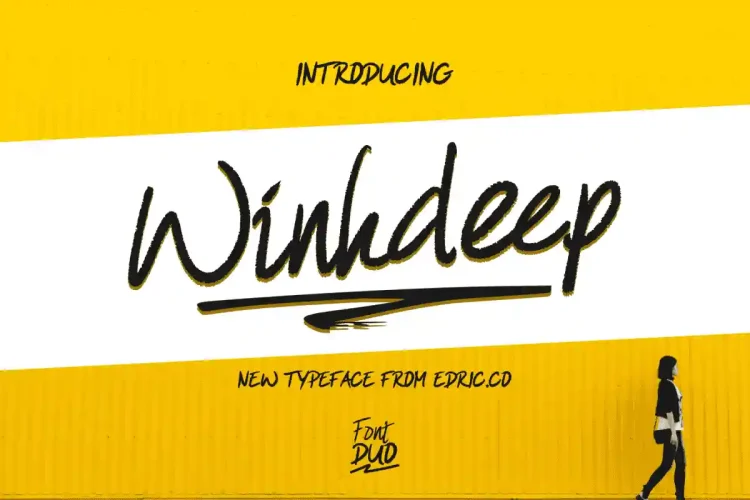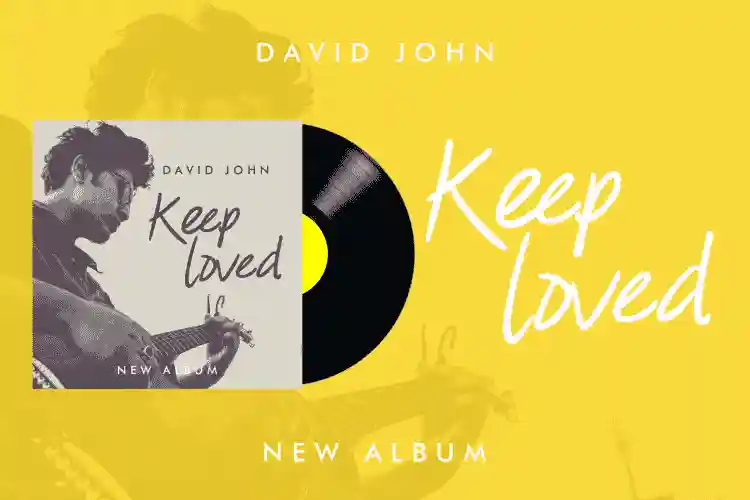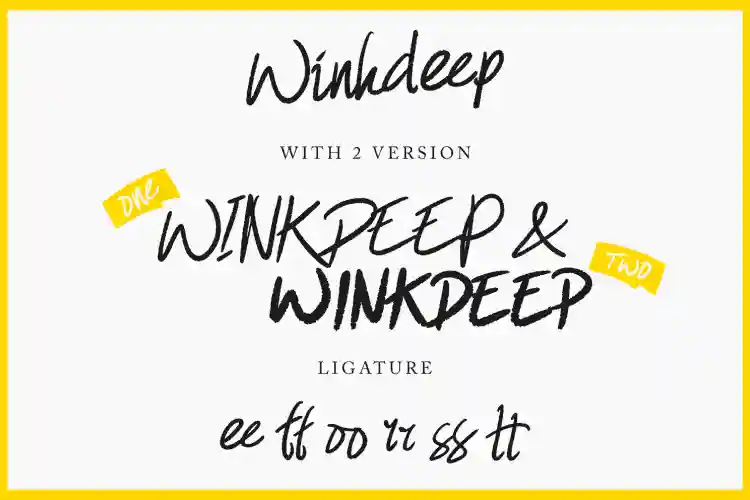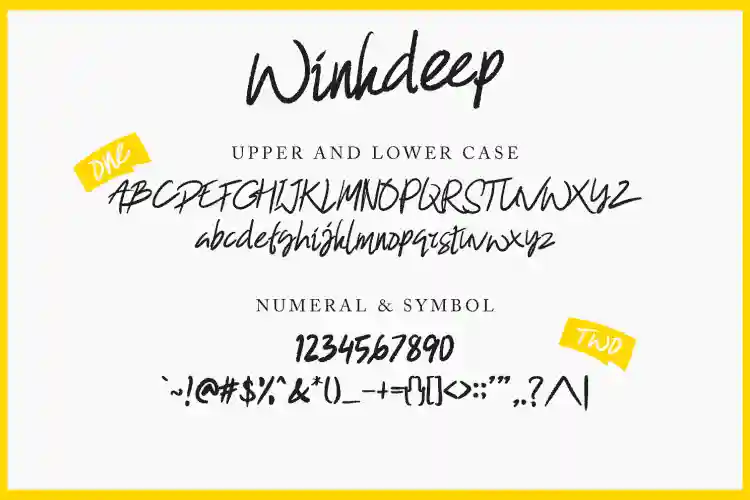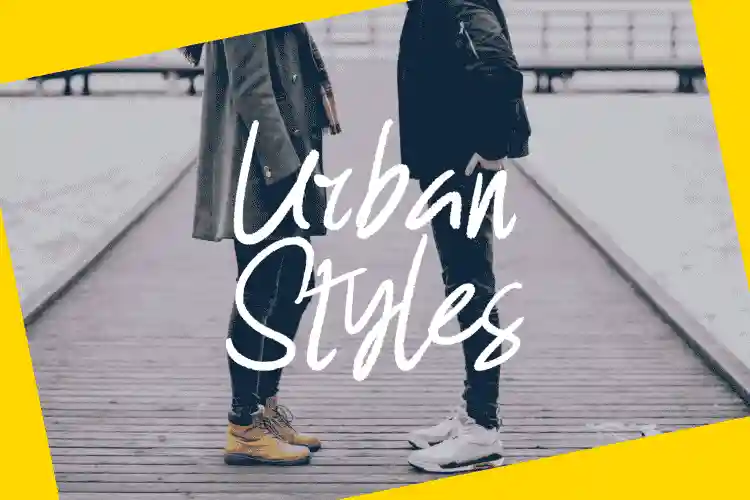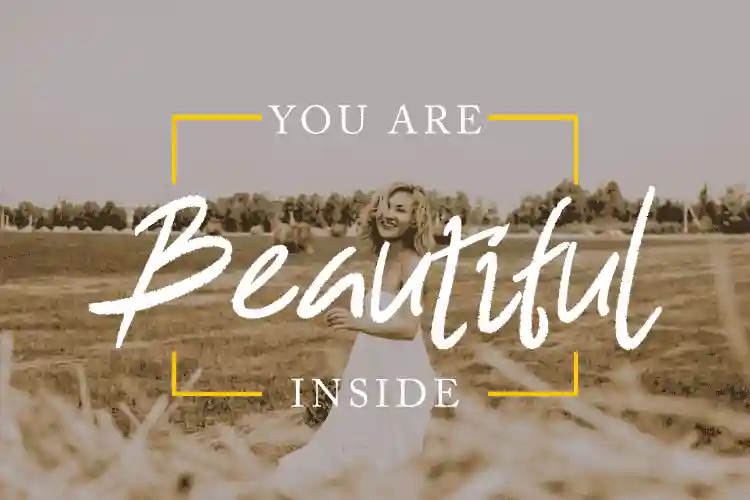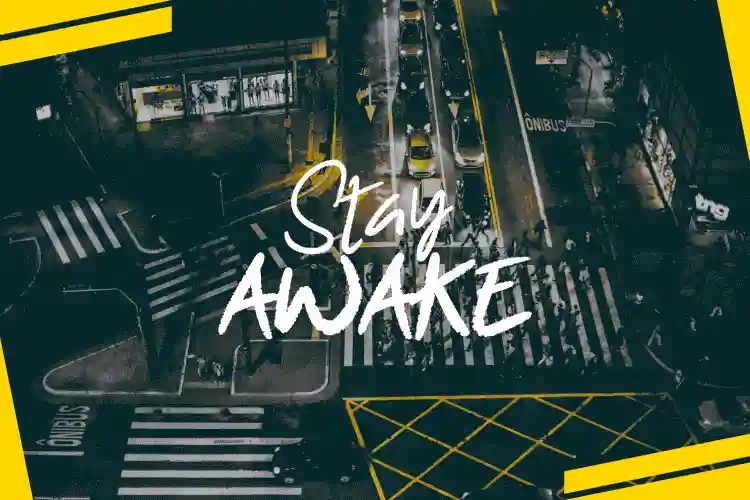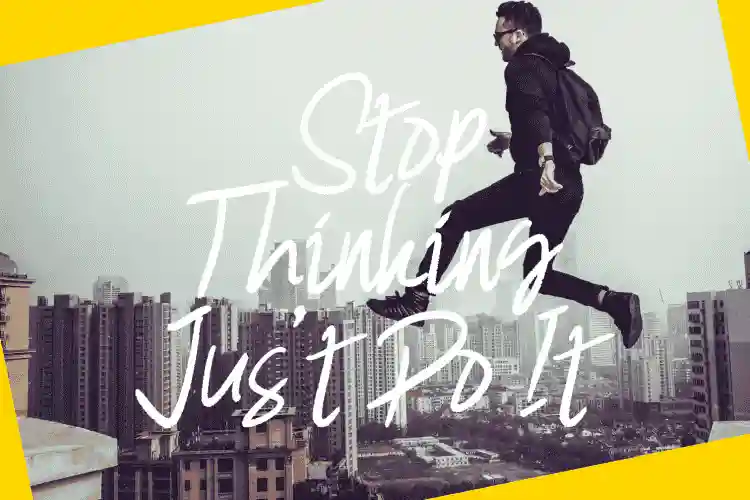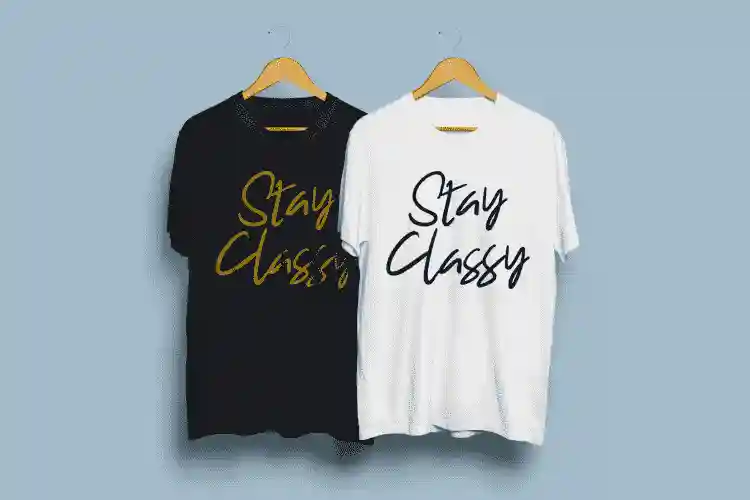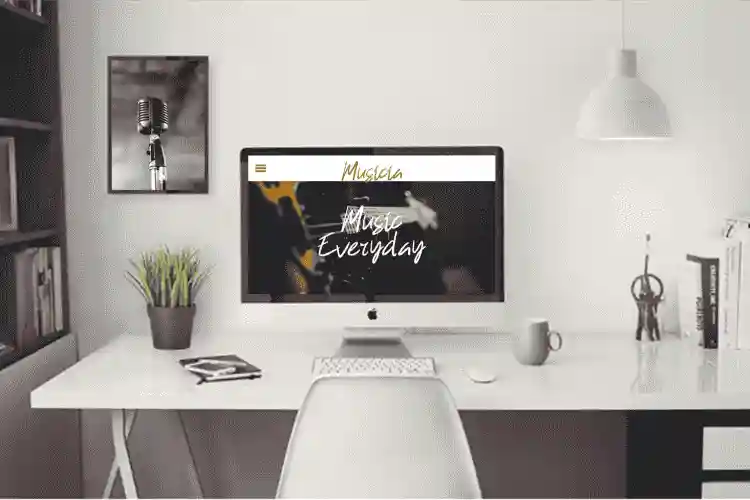
Introducing Winkdeep Script Font – a stylish, modern handwritten typeface perfect for logos, invitations, branding, and social media. With elegant curves and a natural flow, Winkdeep adds a personal, creative touch to any design. Download this premium script font today and elevate your project’s visual appeal instantly. WinkDeep has 2 font variations so we call it Duo Script Font. We made it looks like a dry brush and a rough chalk hand writing.
This font is great for many things : shirt, poster, branding, menu, flyer, invitation, logo, etc. It has a unique texture so it’s really rare and has its own kind. WinkDeep consist of 2 variation : ONE and TWO. It has different thickness, so it can make more options. With unlimited creativity. It’s great for printing designs and online brands.
Elevate your design projects with the stunning Winkdeep Script Font, a modern handwritten typeface that blends elegance with creativity. Perfect for branding, logos, wedding invitations, packaging, and social media graphics, this font brings a personal and stylish touch to every design. With its smooth curves and natural flow, Winkdeep Script Font adds charm and sophistication that captivates your audience. Whether you’re a designer, blogger, or business owner, this font is a must-have in your creative toolkit.
Winkdeep Script Font features smooth, flowing lines and carefully designed letterforms that create a natural and authentic handwriting effect. Its balanced style makes it highly versatile—perfect for both professional and personal design needs. The font includes uppercase and lowercase characters, numerals, punctuation, and a variety of ligatures and stylistic alternates to give you creative freedom and flexibility.
Ideal for designers, entrepreneurs, and creatives seeking a unique and premium typeface, Winkdeep Script Font helps elevate your visual identity with ease. Download it today and experience how a beautifully handwritten font can bring warmth, charm, and professionalism to any project. Make a lasting impression with the timeless style of Winkdeep Script Font.